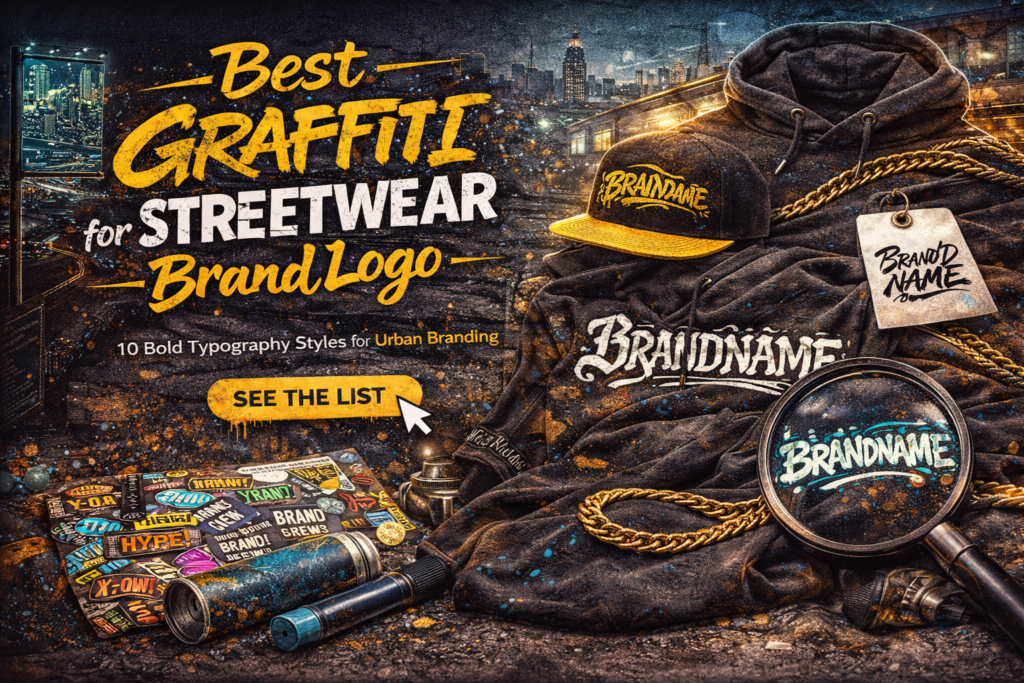
Best Fonts for Streetwear Brand Logo: 10 Bold Typography Styles for Urban Branding
Choosing the best fonts for streetwear brand logo is one of the most important parts of building a strong fashion identity. In the streetwear industry, the logo is more than just branding — it becomes part of the culture, the drop, and the community around the brand.
Typography plays a huge role in how customers perceive your clothing line. A bold and unique font can instantly make your brand look more premium, exclusive, and memorable.
In this guide, we’ll explore the best typography styles for streetwear brand logos.
Why Typography Matters in Streetwear Branding
Streetwear is driven by identity and culture.
Typography affects:
• brand recognition
• exclusivity
• product appeal
• memorability
A strong logo font helps your clothing brand stand out in a competitive market.
10 Best Fonts for Streetwear Brand Logo
1. Graffiti Fonts
Graffiti typography is perfect for:
• streetwear brands
• urban clothing labels
• youth fashion
This style creates strong street identity.
2. Gothic Fonts
Gothic fonts are bold and premium.
Great for:
• luxury streetwear
• dark fashion brands
• limited edition drops
3. Brush Fonts
Brush styles add movement and personality.
Perfect for modern streetwear logos.
4. Bold Sans Serif Fonts
These fonts create a clean but strong identity.
Great for minimalist streetwear brands.
5. Drip Fonts
Drip typography adds an edgy rebellious look.
Excellent for youth-focused apparel.
6. Wildstyle Fonts
Highly expressive and detailed.
Perfect for hype and exclusive branding.
7. Distressed Fonts
Ideal for rugged streetwear aesthetics.
8. Minimal Urban Fonts
Perfect for premium streetwear labels.
9. Display Fonts
Display styles help create memorable logos.
10. Custom Lettering Fonts
Best choice for unique brand identity.
Highly recommended for premium streetwear brands.
How to Choose the Best Fonts for Streetwear Brand Logo
Choose based on:
Brand Positioning
Luxury streetwear → gothic / minimal
Urban streetwear → graffiti / wildstyle
Casual streetwear → brush / sans serif
Readability
The logo should remain clear on:
• tags
• caps
• hoodies
• t shirts
• website
Scalability
Your logo must work on both labels and large print designs.
Final Thoughts
Choosing the best fonts for streetwear brand logo is crucial for building strong brand identity and product appeal.
Typography in streetwear directly impacts how customers perceive exclusivity and quality.
Using premium fonts can help your brand stand out and increase perceived value.